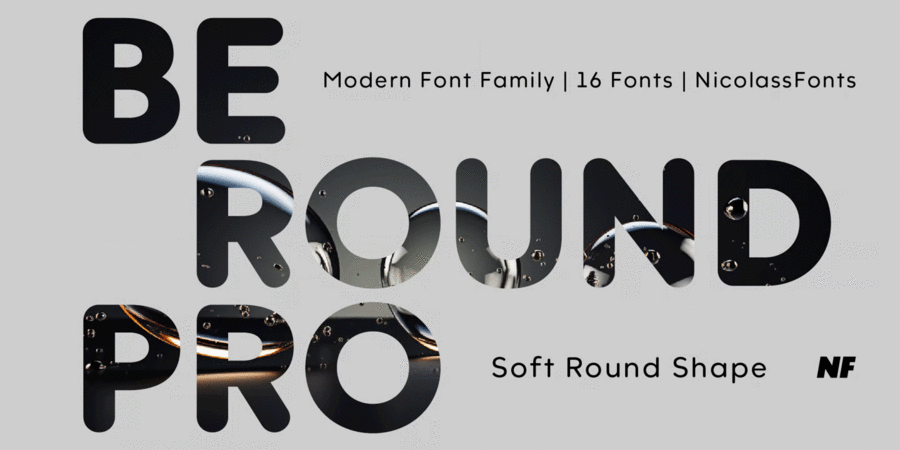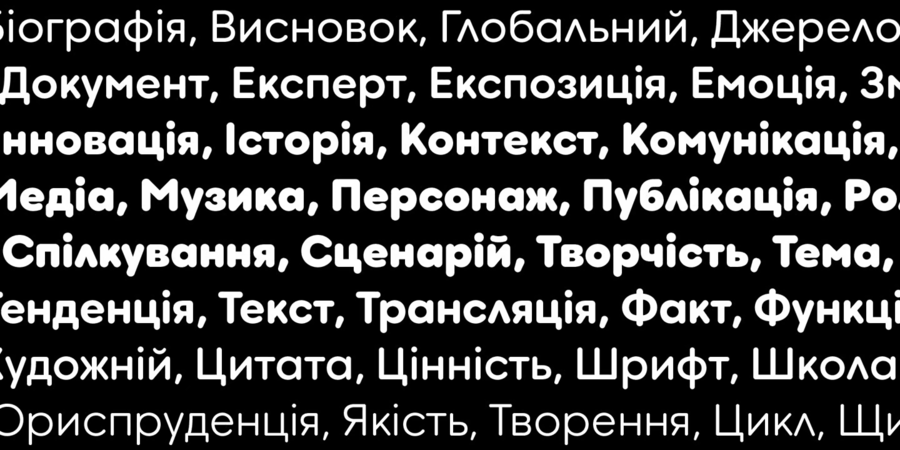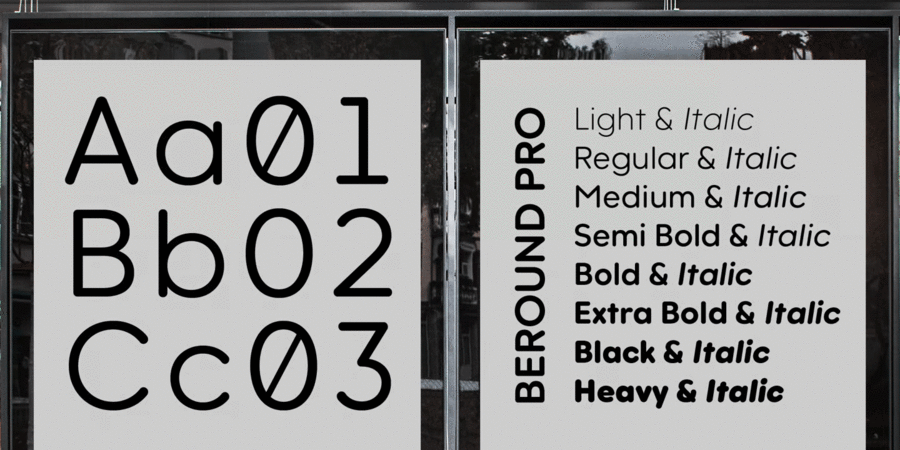
About Beround Pro is a contemporary typeface based on the Beround font family, featuring soft, rounded shapes. It offers 16 weights, including 8 uprights and matching italics. Each font includes 1,000 glyphs and supports OpenType features, making it a versatile choice for branding, marketing, and digital design. The typeface was designed by Mykola Savchuk in 2024.
delicate, clean, easy, chilly, fresh, fashionable, thin, modern, laconic, clear, flat, delicious, high-quality, transparent, intimate, tender, air, wire, static, comfortable, cozy, smooth, home, calm, Soft, pleasant, neon, peaceful, nice, cute, bright, simple, primitive, kind, affable, friendly, benevolent, plastic, children, generous, lush, family, abundant, plentiful, saturated, naive, playful, cartoonish, festive, heavy, massive, fat, plump, strong, appetizing, notable, active, splashy, rubber